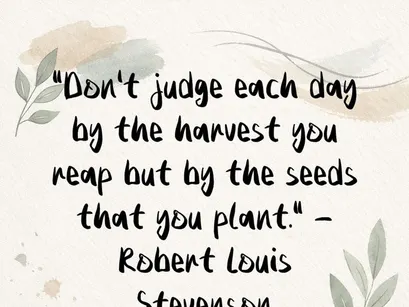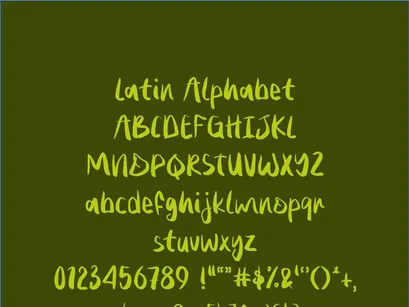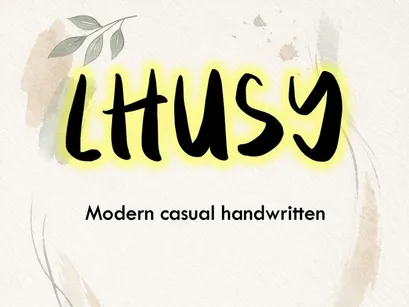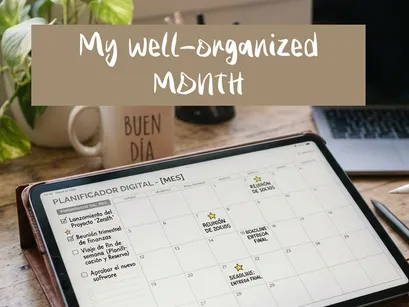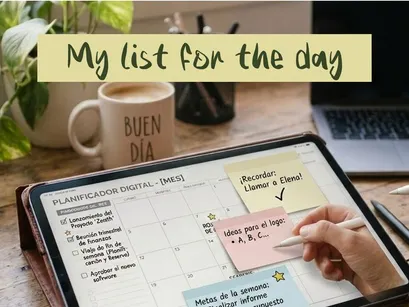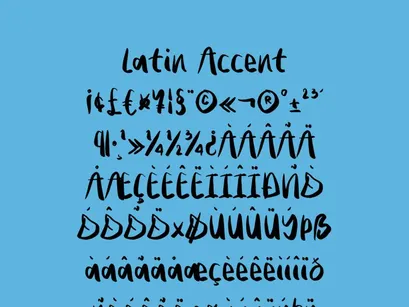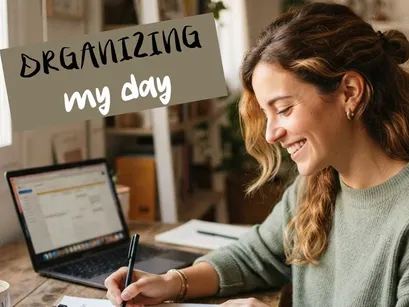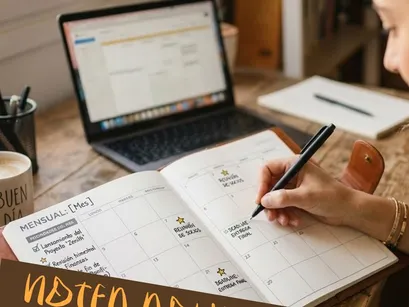
LHUSY is a modern, handcrafted font featuring soft, expressive strokes, designed for projects that blend organization with style. Its casual, handwritten aesthetic adds a natural, approachable touch—perfect for planners, digital agendas, branding, inspirational quotes, and personality-driven visual content.
• Modern, relaxed style
• Fluid, legible lettering
• Ideal for planners, blogs, and social media